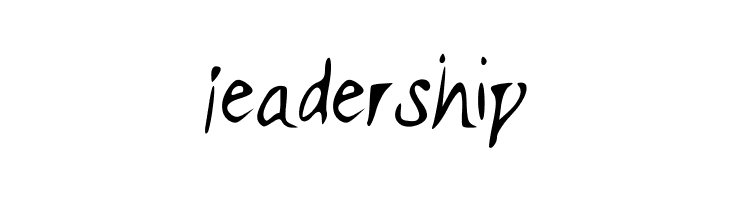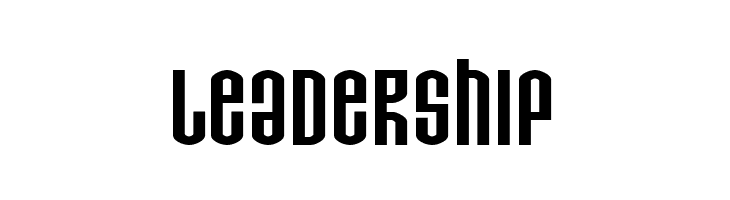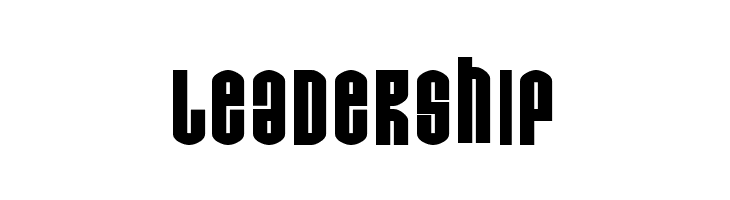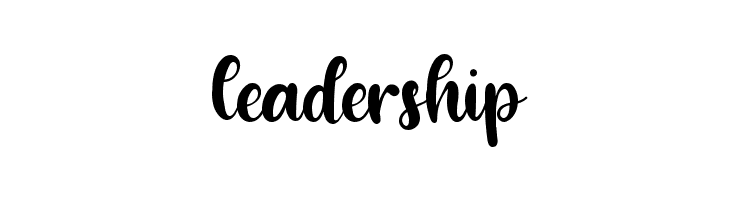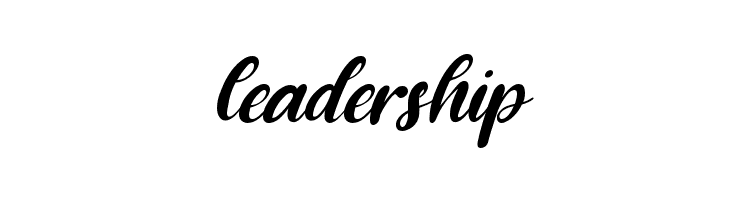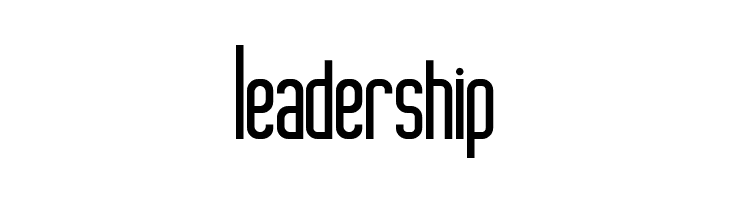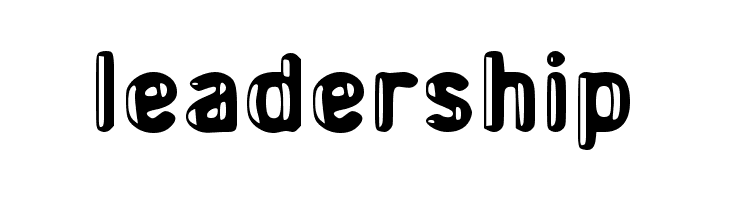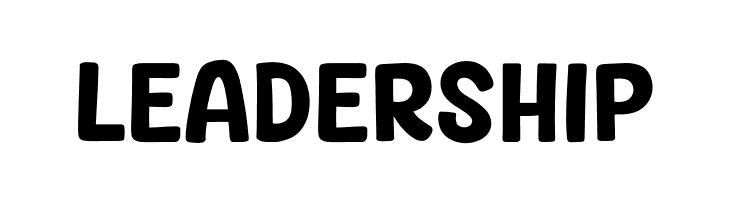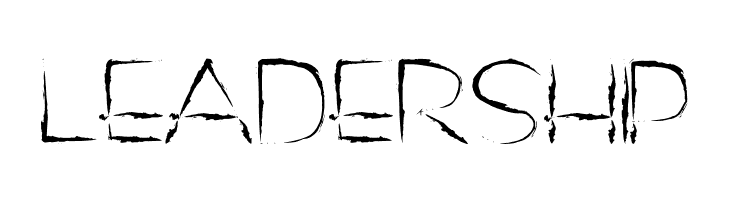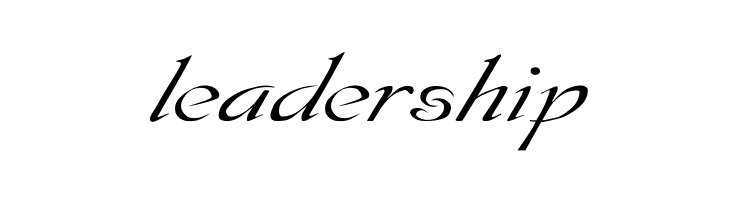
Pictographic recreation and wayfinding symbols with high-contrast, simple icons.
A tall, narrow, and geometric font with a modern and sleek appearance.
A jagged, hand-drawn font with an edgy, dynamic appearance.
A bold, abstract font with rounded forms and a futuristic aesthetic.
A modern, geometric sans-serif font with uniform strokes and clear readability.
A playful, modern font with elongated, curved characters and minimal contrast.
A bold, playful font with chunky, exaggerated letterforms.
A bold, distressed font with a vintage, textured appearance.
A bold, condensed font with a strong vertical emphasis and modern aesthetic.
A bold, geometric font with a modern, retro flair and tight character spacing.
A bold, italic, and condensed font with a modern and dynamic style.
A bold, italicized font with a sleek, modern appearance.
A bold, slanted font with a modern and dynamic style.
A distressed, grungy font with rough, uneven edges and a hand-drawn look.
A distressed, grunge-style font with rough, jagged edges and a bold appearance.
A bold, angular, and geometric font with a dynamic and edgy style.
A dynamic, handwritten font with playful and irregular letterforms.
A playful, bold font with a hollow, three-dimensional effect.
A bold, dynamic handwritten font with thick, rounded strokes and a playful style.
A bold, playful script font with expressive, cursive letterforms.
A playful and elegant script font with a handwritten style.
A dynamic and elegant cursive script font with a handwritten appearance.
A dynamic and elegant script font with a handwritten appearance.
A playful, bold typeface with rounded edges and a friendly appearance.
A decorative font with intricate loops and curves, offering a playful and sophisticated look.
An elegant script font with flowing, calligraphic elements and ornate flourishes.
An elegant script font with flowing, ornate swashes and flourishes.
An elegant script font with flowing, calligraphic letterforms and intricate swashes.